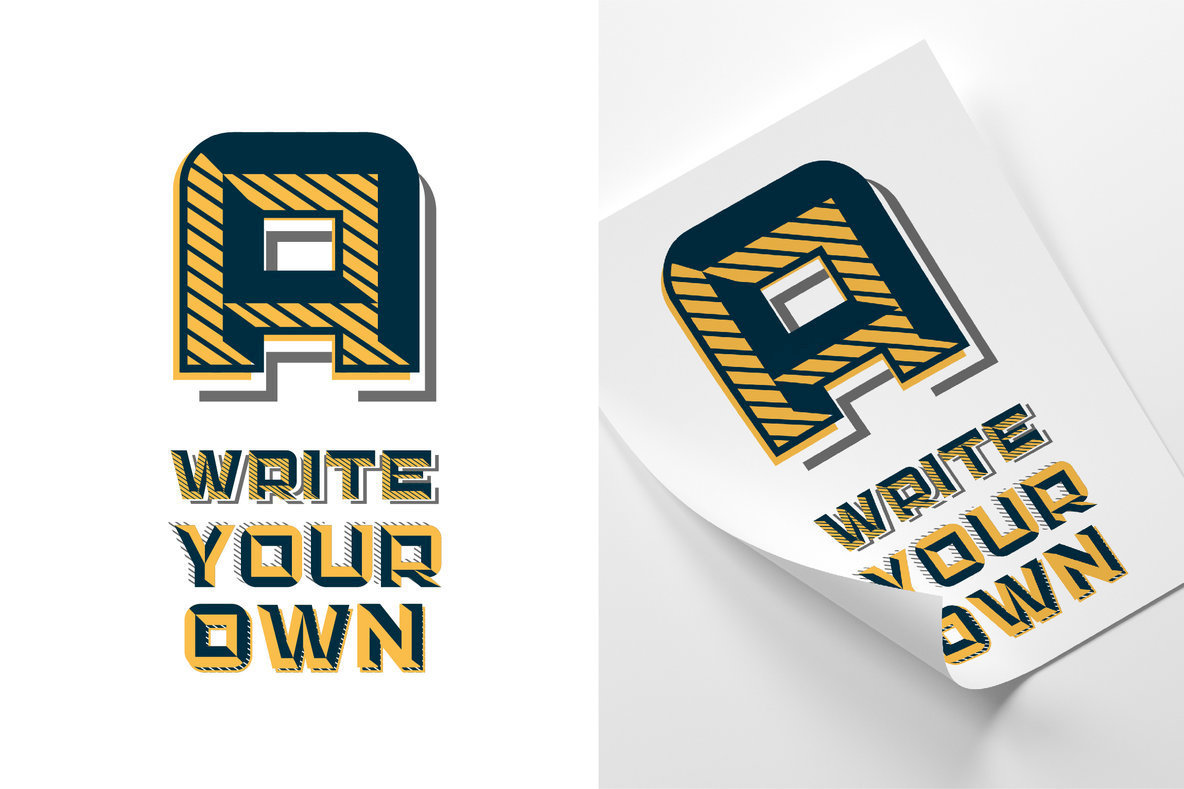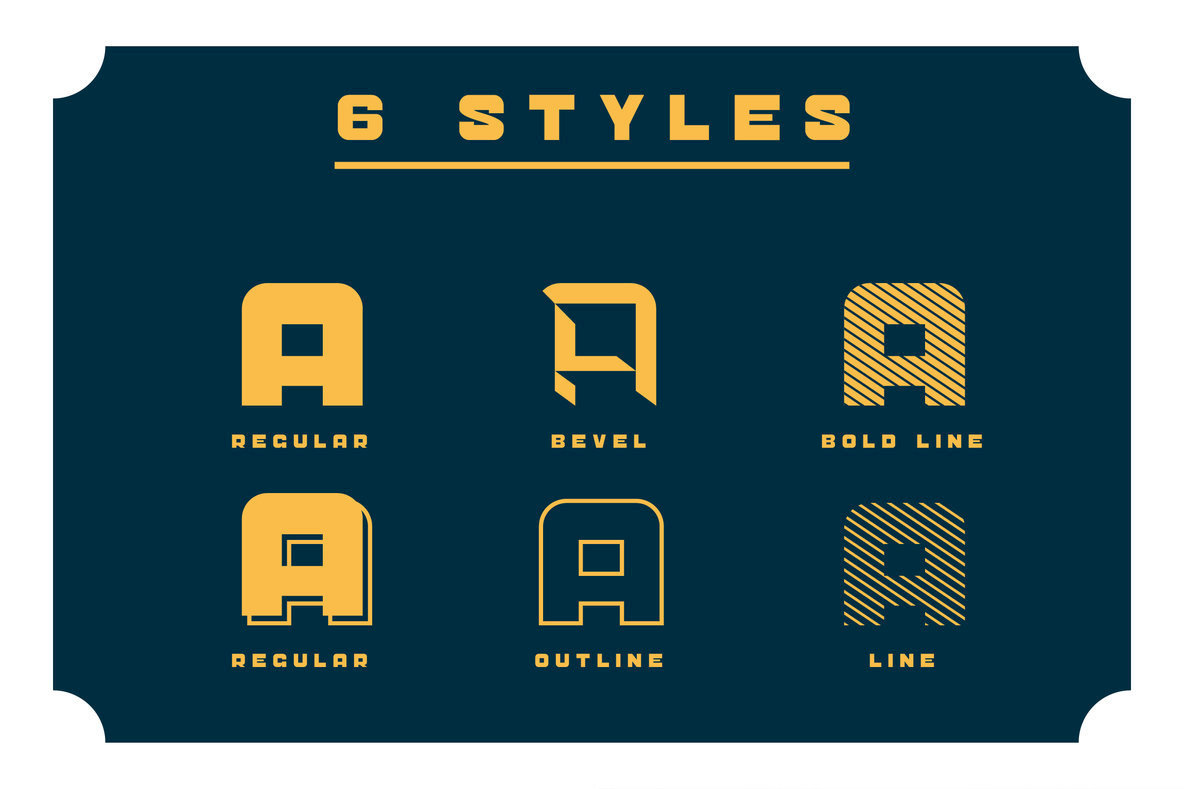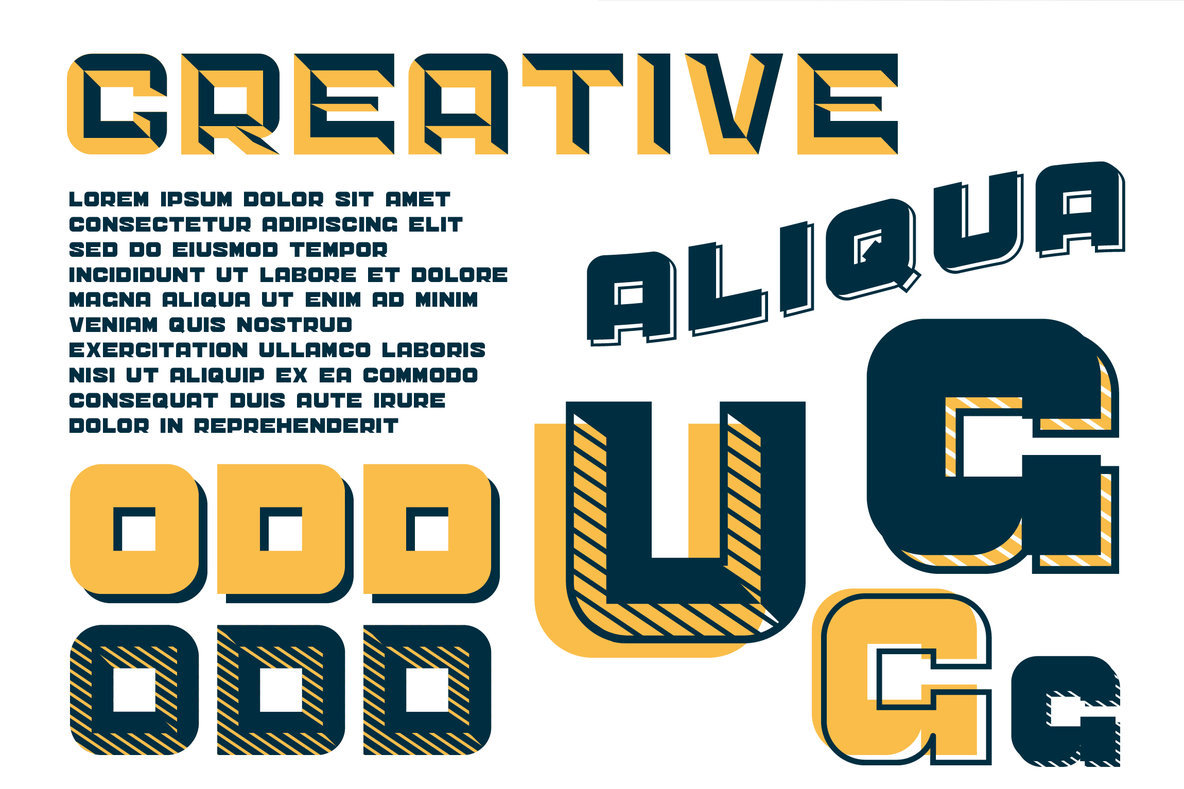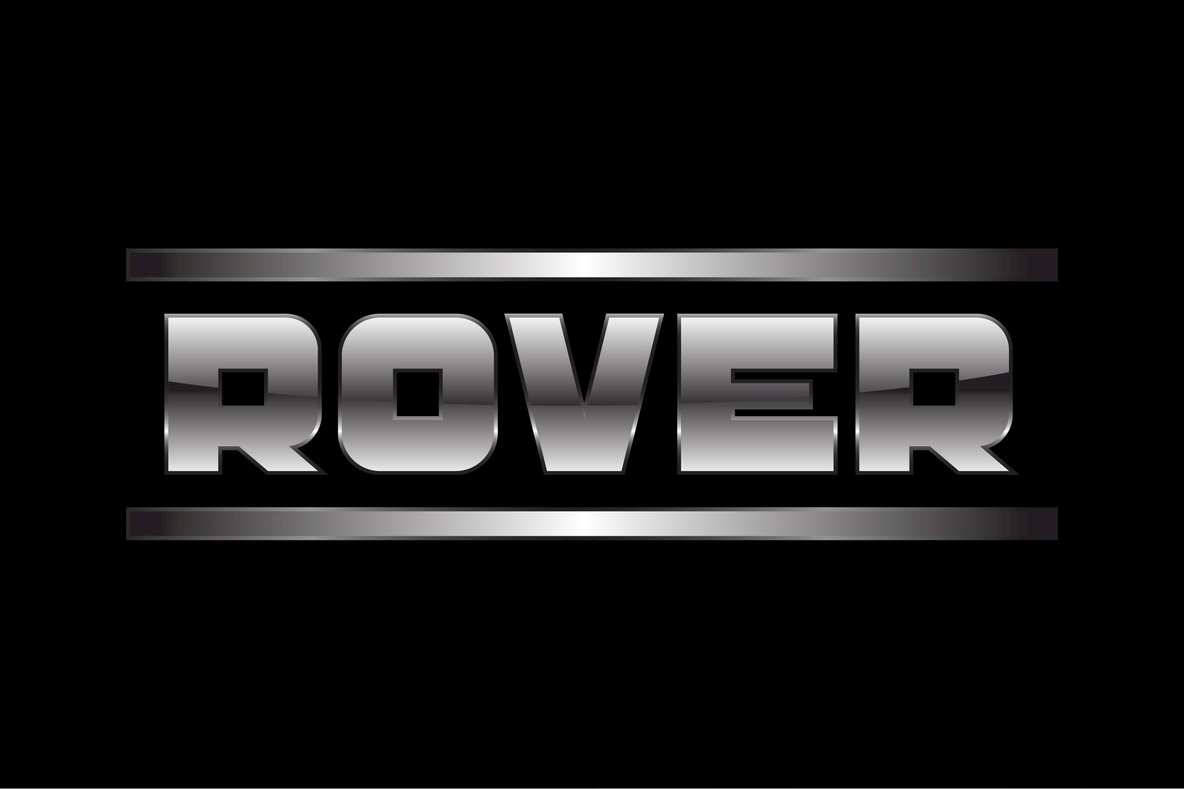
CS Sandreas Font
The CS Sandreas Font Family by Craft Supply Co. is an eclectic collection that comprises six distinctive font styles. Perfectly suited for print and digital media, this diverse font family fosters creativity in various design projects, from greeting cards and package designs to brand identities and DIY creations. CS Sandreas brings vivid liveliness to your work without the need for special software. This font family invites experimentation with its varied patterns and shapes, making it ideal for book titles, wedding projects, pop vintage designs, and retro aesthetics. Enjoy infusing your projects with a trendy and aesthetically appealing flair.CS Sandreas: Versatile Typeface for Creative Projects